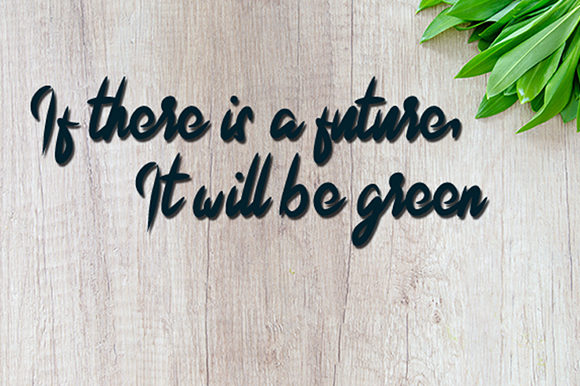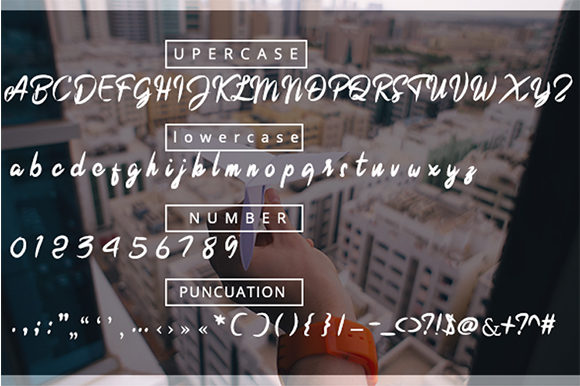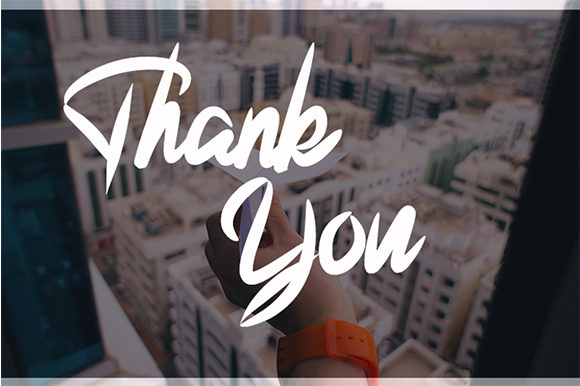
Introducing Green Teratai: The Sweet and Stunning Handwritten Font
Are you tired of using the same old fonts in your design projects? Do you want to add a touch of elegance and sophistication to your creations? Look no further than Green Teratai, a beautiful handwritten font that is sure to make your designs stand out.
What is Green Teratai?
Green Teratai is a sweet and stunning handwritten font with an incredible feel. It is a unique and eye-catching font that is perfect for a variety of design projects, from branding and advertising to packaging and digital media. With its elegant and flowing lines, Green Teratai is sure to add a touch of class and sophistication to any design.
Features of Green Teratai
So, what makes Green Teratai so special? Here are just a few of the features that make this font stand out:
- Handwritten with love: Green Teratai is a handwritten font, which means that it has a personal and unique touch that is hard to replicate with digital fonts.
- Elegant and flowing lines: The lines in Green Teratai are smooth and flowing, making it perfect for designs that require a touch of elegance and sophistication.
- Perfect for a variety of designs: Green Teratai is versatile and can be used in a variety of design projects, from branding and advertising to packaging and digital media.
- Easy to read: Despite its elegant and flowing lines, Green Teratai is easy to read, making it perfect for designs that require a clear and concise message.
Why Use Green Teratai?
So, why should you use Green Teratai in your design projects? Here are just a few reasons:
- Add a touch of elegance: Green Teratai is the perfect way to add a touch of elegance and sophistication to your designs.
- Stand out from the crowd: With its unique and eye-catching lines, Green Teratai is sure to make your designs stand out from the crowd.
- Perfect for creative projects: Green Teratai is perfect for creative projects, such as crafting, scrapbooking, and journaling.
Design Ideas Using Green Teratai
Green Teratai is a versatile font that can be used in a variety of design projects. Here are just a few ideas to get you started:
- Branding and advertising: Use Green Teratai to create beautiful and eye-catching branding and advertising materials, such as logos, business cards, and brochures.
- Packaging design: Green Teratai is perfect for packaging design, including labels, tags, and packaging inserts.
- Digital media: Use Green Teratai to create beautiful and engaging digital media, such as social media graphics, blog posts, and email newsletters.
- Crafting and scrapbooking: Green Teratai is perfect for crafting and scrapbooking projects, including journaling, card making, and scrapbooking.
Green Teratai is a beautiful and unique handwritten font that is sure to make your designs stand out. With its elegant and flowing lines, Green Teratai is perfect for a variety of design projects, from branding and advertising to packaging and digital media. Whether you are a designer, crafter, or simply someone who loves to create, Green Teratai is a must-have font that is sure to inspire your creativity.